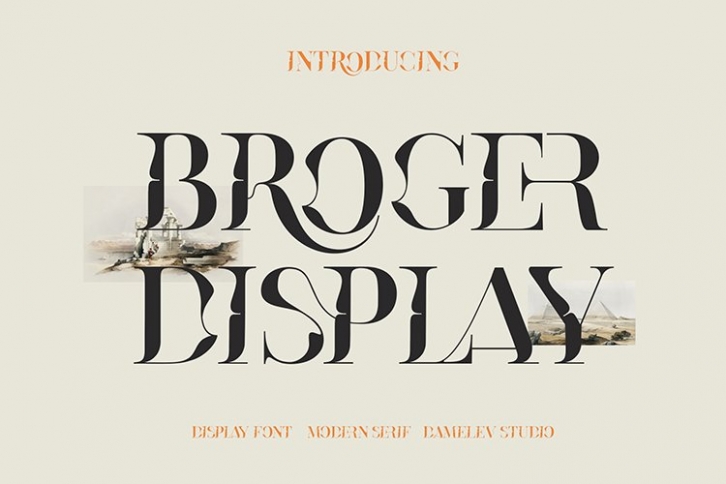
Broger is a beautiful font that was designed by Damelev. It's a great choice for designers and creatives who need such a font. It was released on October 25, 2021 and the file size is 2.17 MB. Broger may give a more youthful, expressive and casual look to your project. It is a very beautiful, refined, elegant, and high-quality font.